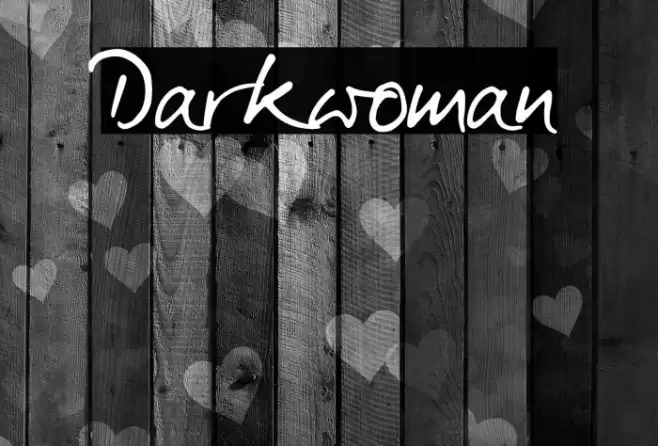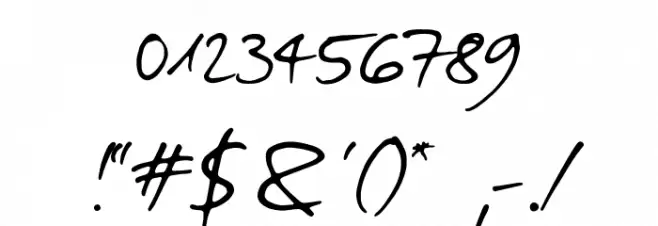
Darkwoman Font
Darkwoman Description
This font exudes a dynamic and energetic feel with its handwritten style, characterized by fluid and slightly irregular strokes that mimic natural handwriting. The uppercase letters are bold and expressive, while the lowercase letters maintain a consistent flow, enhancing readability. The numbers and special characters are crafted with the same lively touch, making them stand out. The overall appearance is casual yet sophisticated, suitable for projects that require a personal touch. The font's unique style makes it versatile for various creative applications.
A dynamic handwritten font with fluid, expressive strokes from Uncategorized fonts.
- Proposed Projects: Ideal for personal branding, greeting cards, invitations, and creative projects that require a personal touch.
- Overall Style: Casual, Energetic
- Use Case: Logos, Headlines, Creative projects